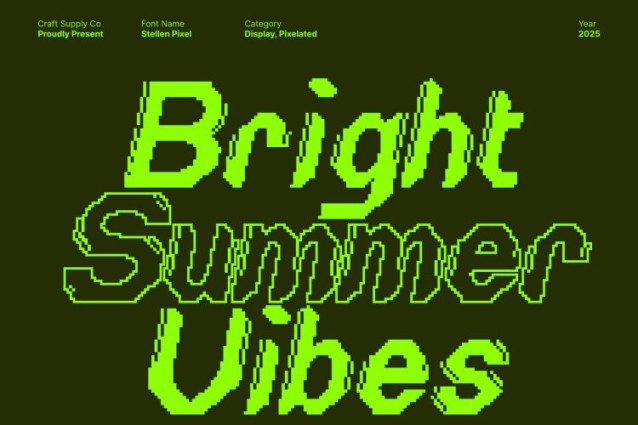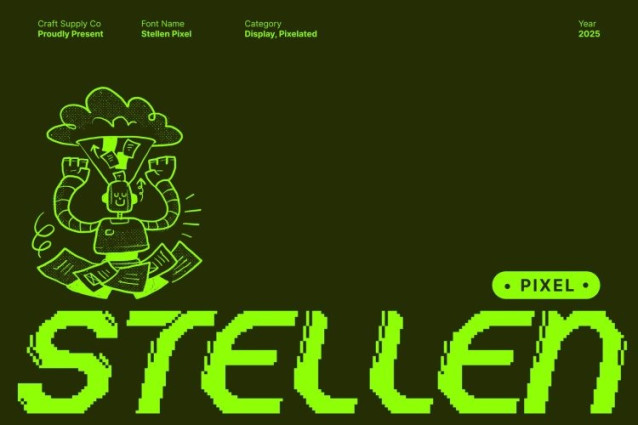
Stellen Pixel Font
Stellen Pixel Font This is a techno-inspired sans serif font designed to deliver bold impact and unmistakable modern energy. With its clean geometric structure and powerful stance, this typeface channels futuristic style in every letter. The added pixel effect intensifies its digital personality, giving the font a cutting-edge edge that feels both contemporary and forward-looking.
Bold Forms for Strong Visual Impact
The bold weight of this font ensures that any text set in it becomes an immediate focal point. Its assertive shapes create clear hierarchy and high readability, making it excellent for display use. Whether used in large headings or statement design elements, the sturdy geometry guarantees a commanding presence in both digital and print compositions.
Pixel Styling for Futuristic Expression
Its integrated pixel texture elevates the font’s futuristic vibe, adding an extra layer of digital flair. This effect blends nostalgia with innovation, producing a style reminiscent of early digital graphics while still feeling fresh and modern. The pixel detailing enhances character definition and creates a visually engaging surface across all design applications.
Perfect for Branding, Logos, and Tech-Driven Posters
This is built for bold and futuristic design projects such as branding, logo creation, poster designs, gaming visuals, and tech-themed layouts. Its striking form and digital texture help brands convey innovation, speed, and modern identity.